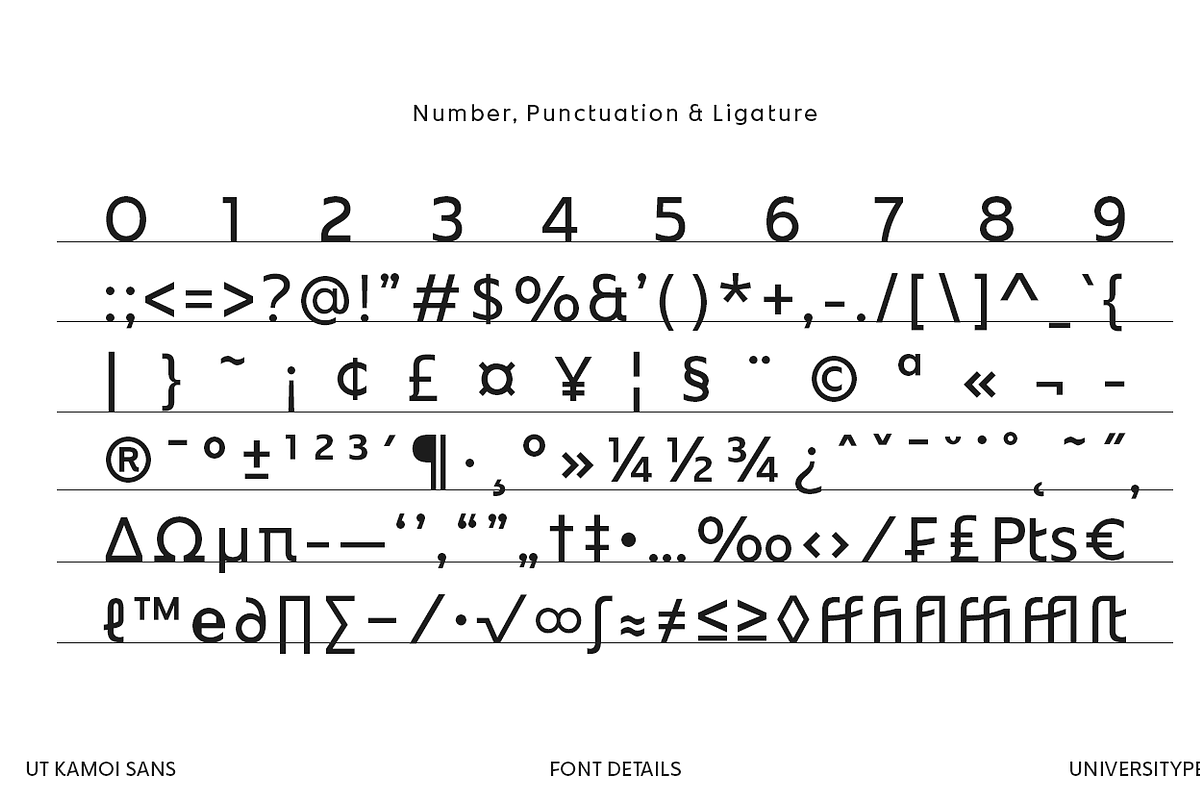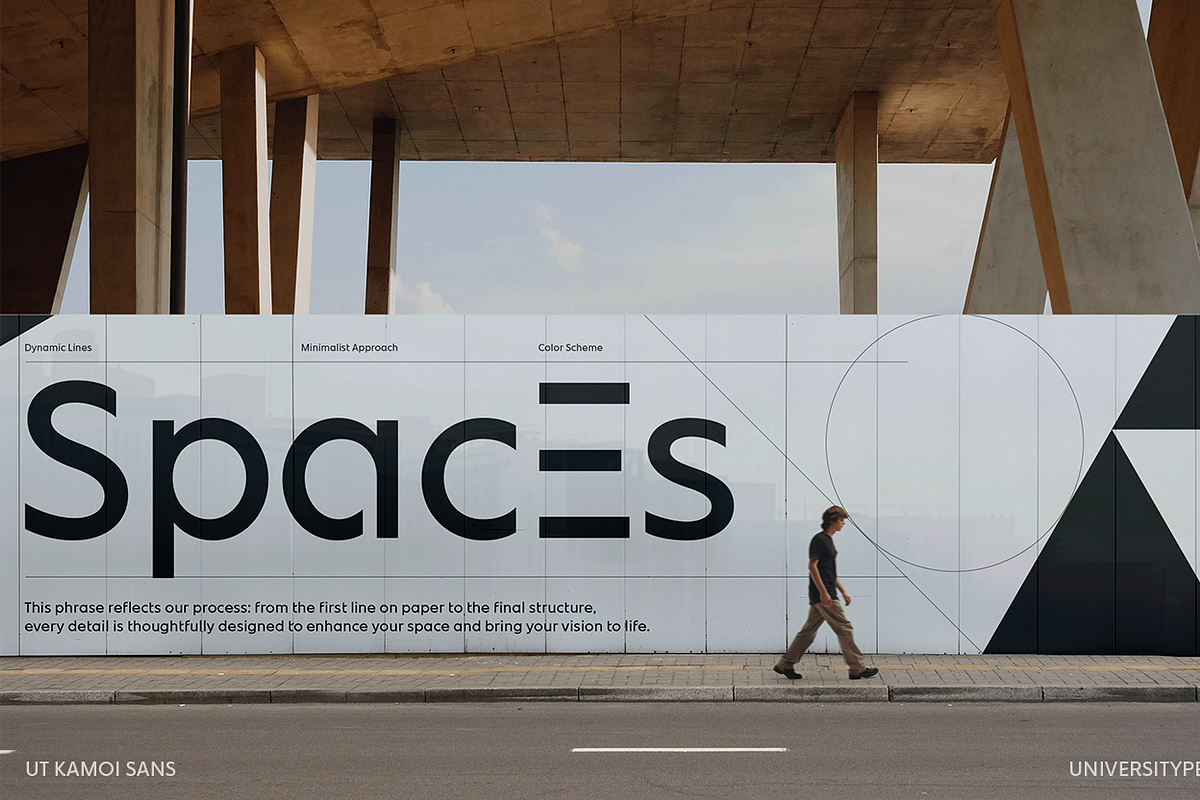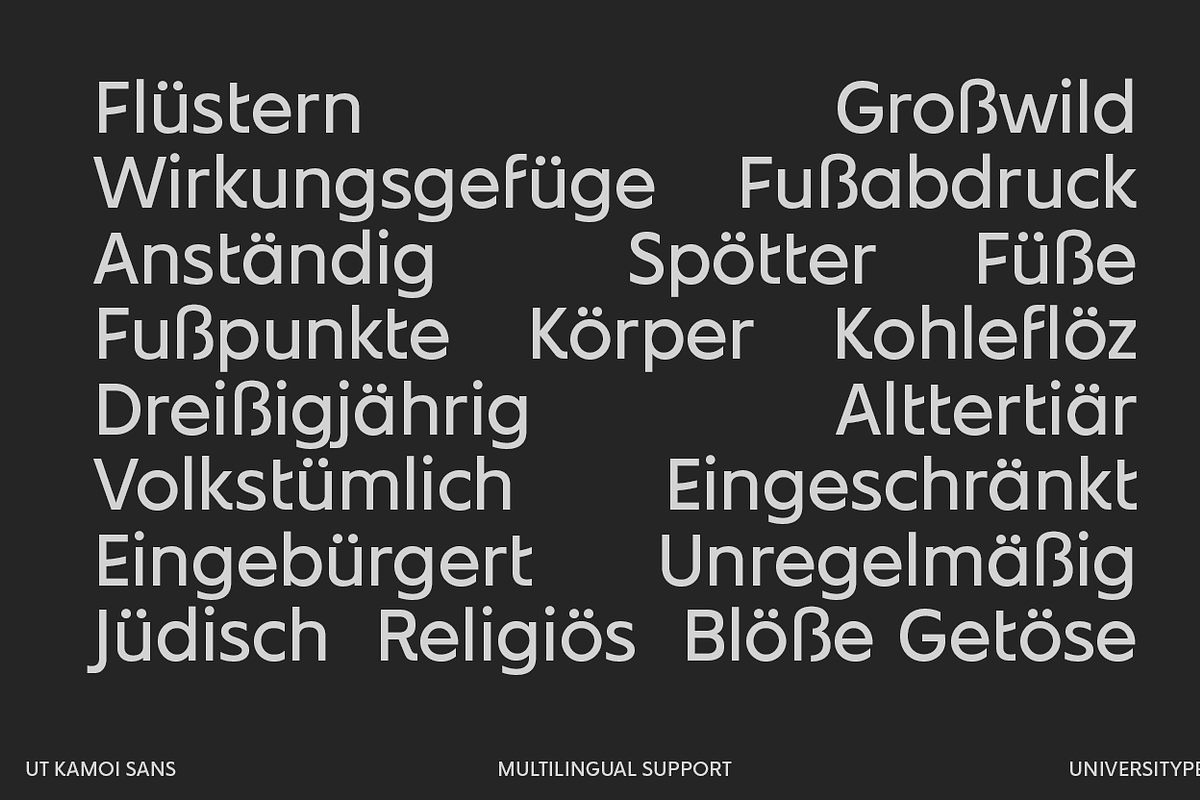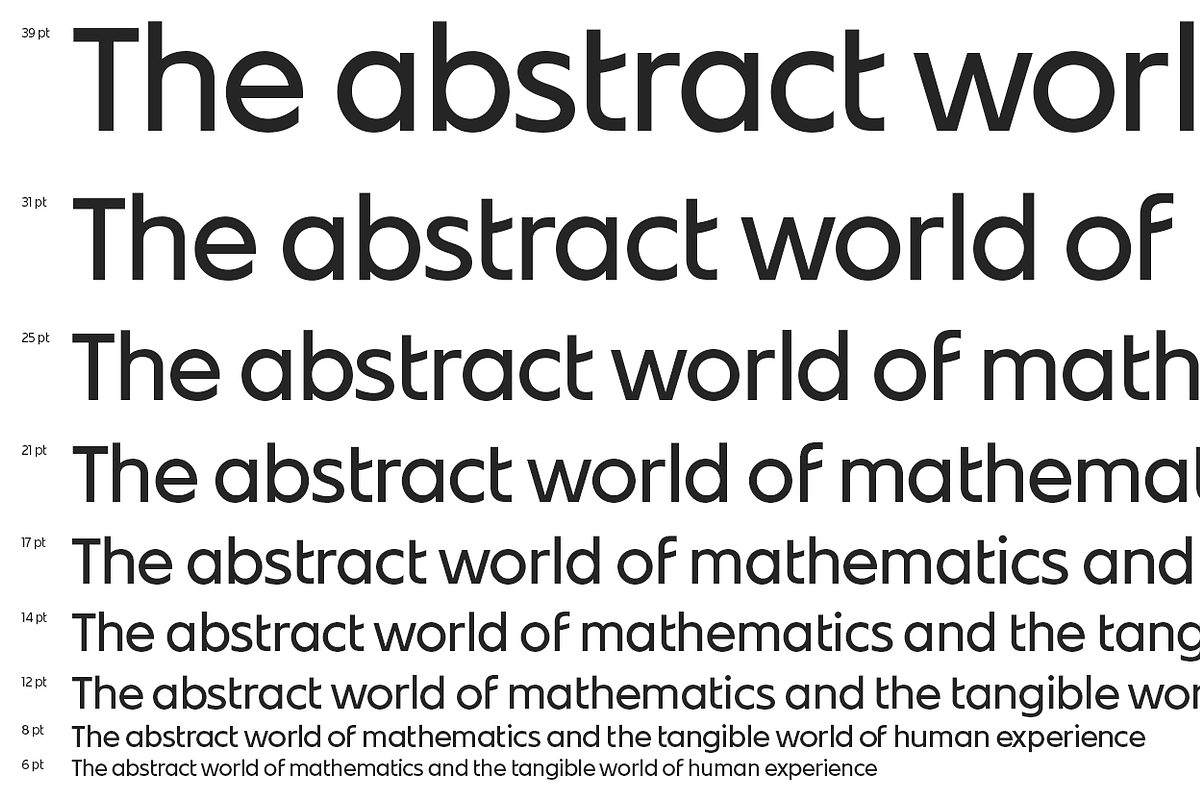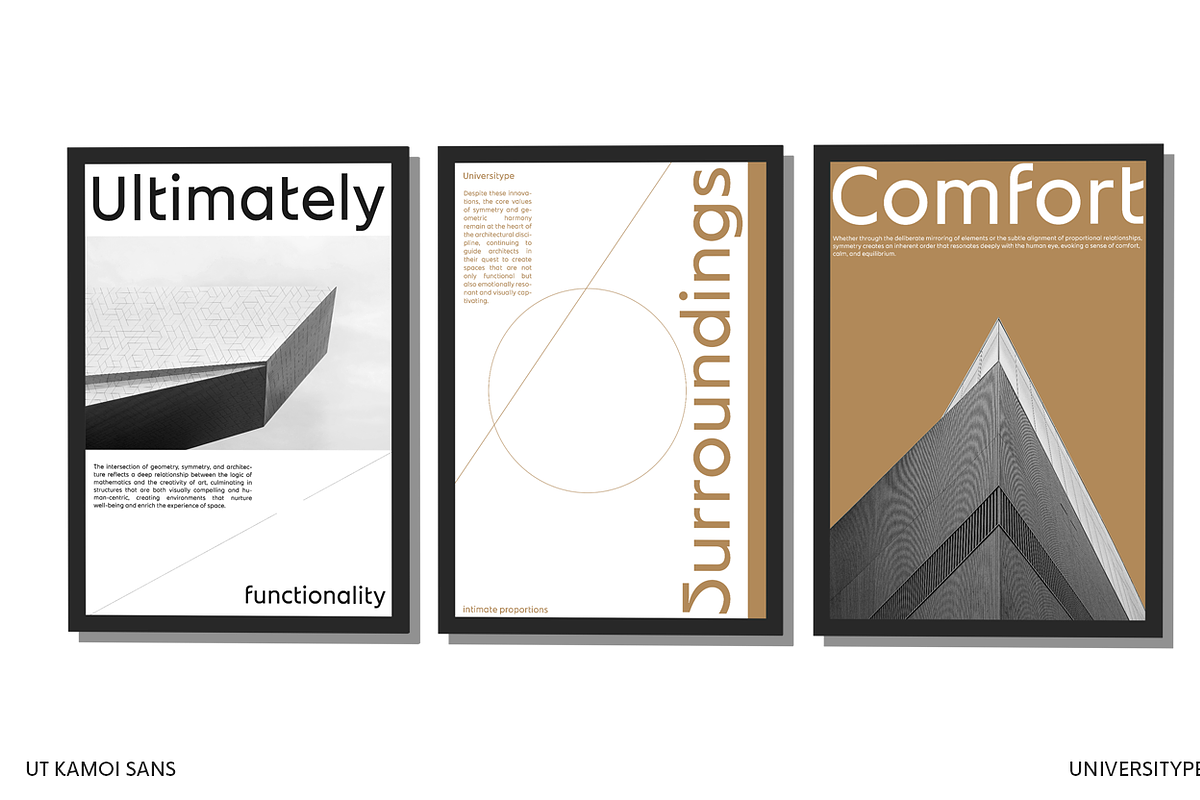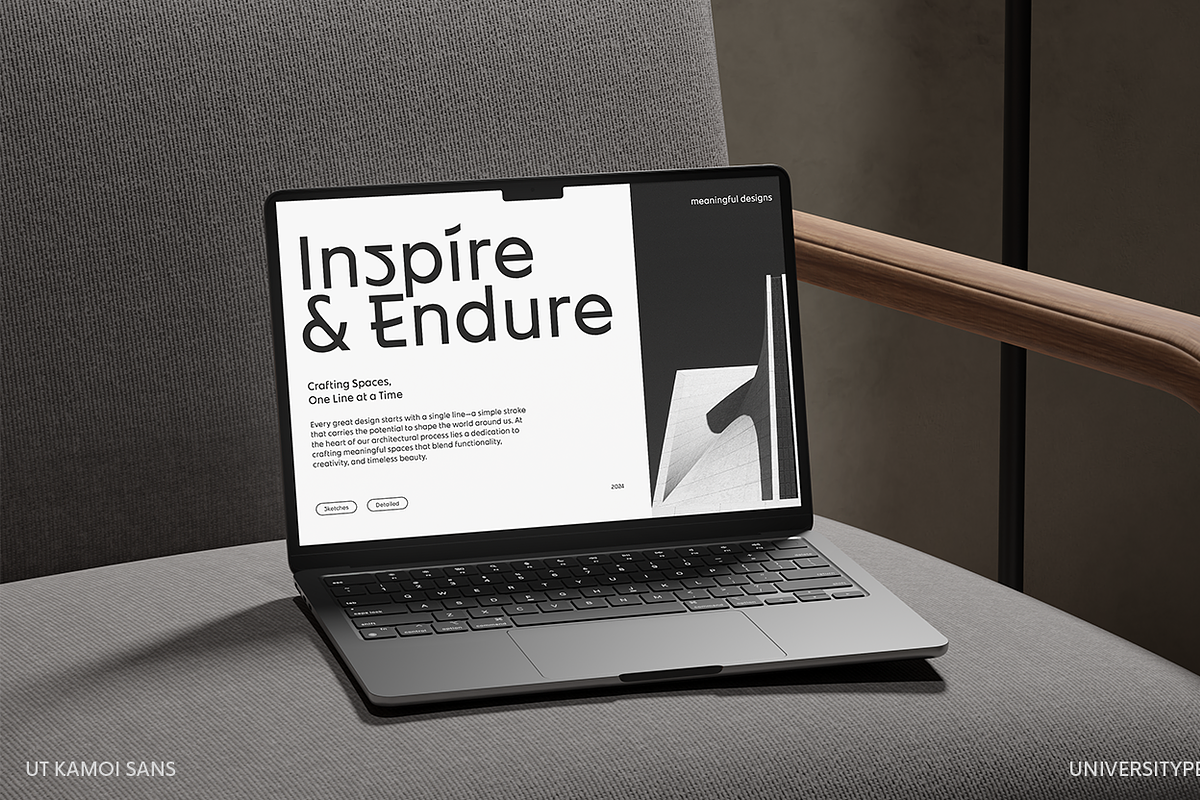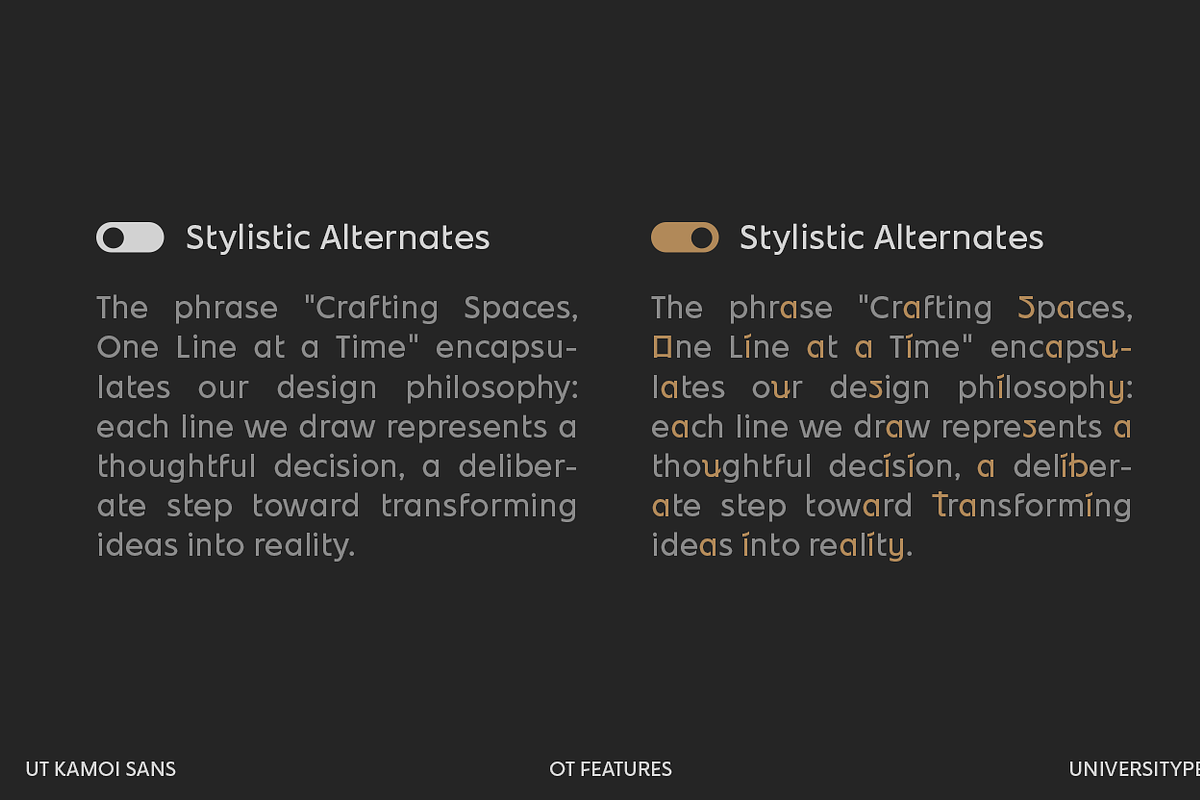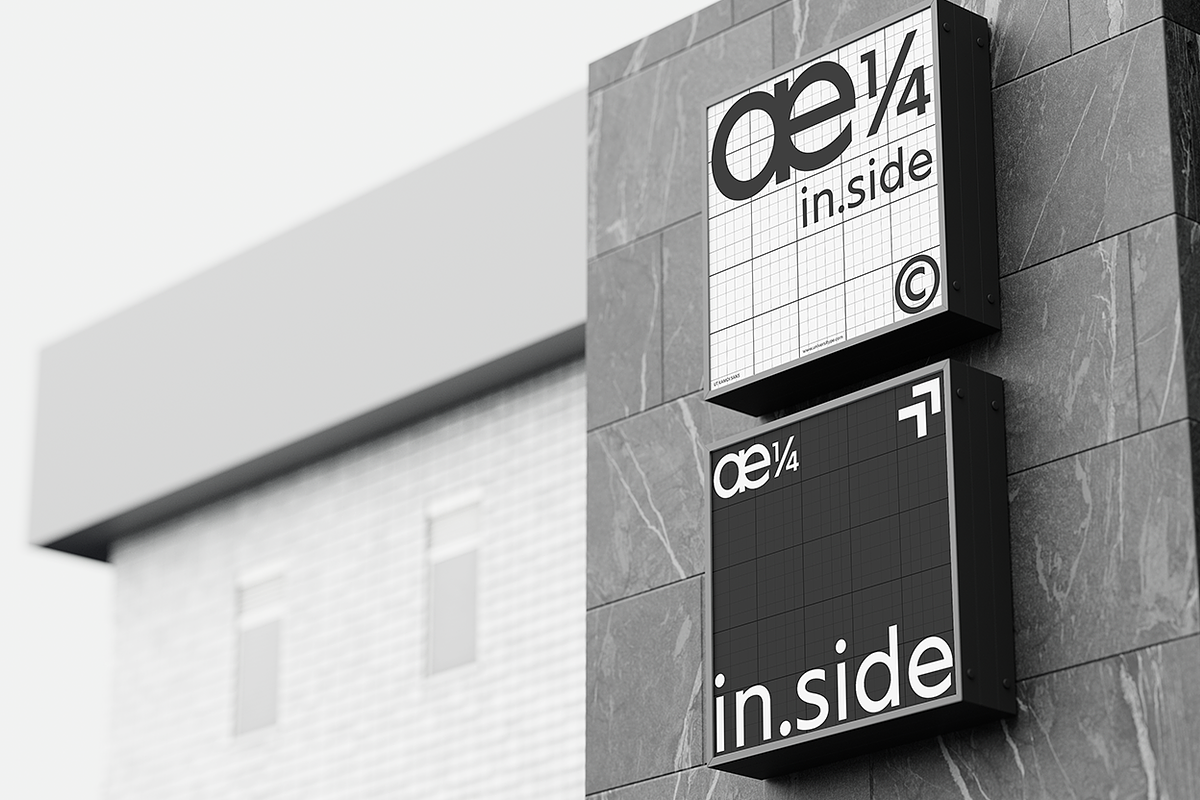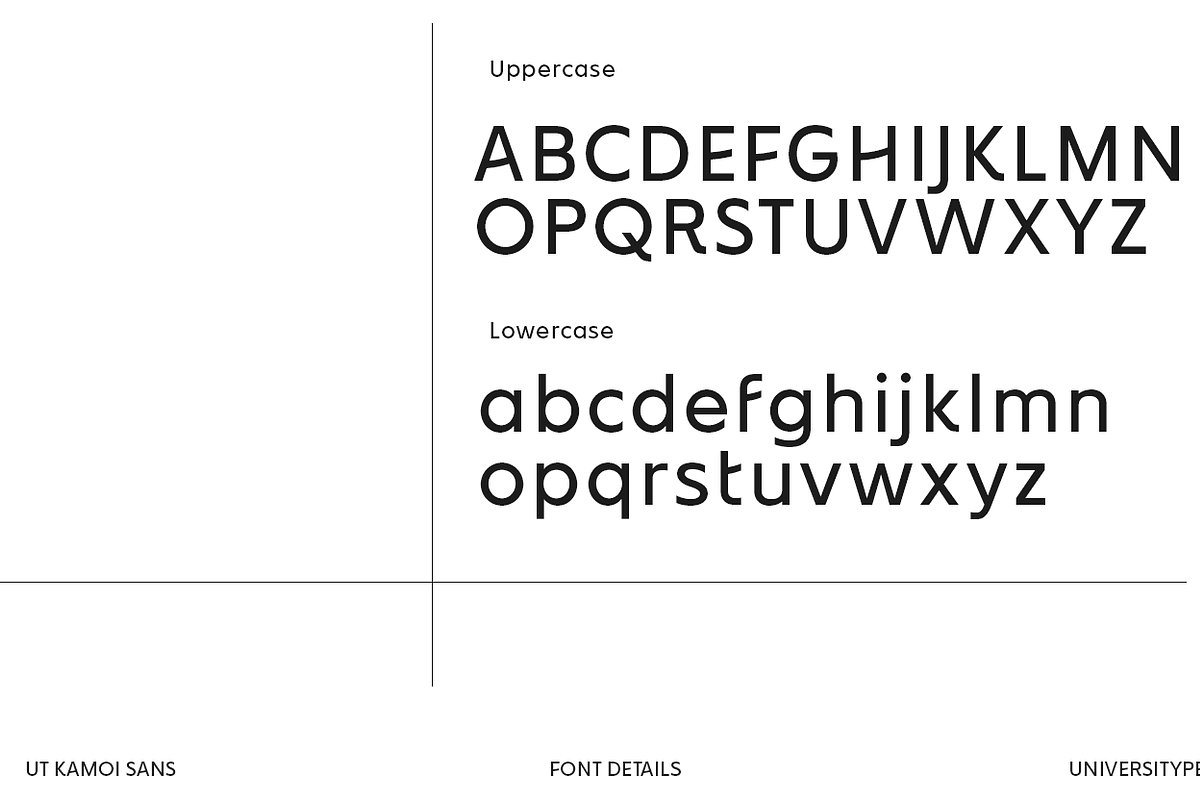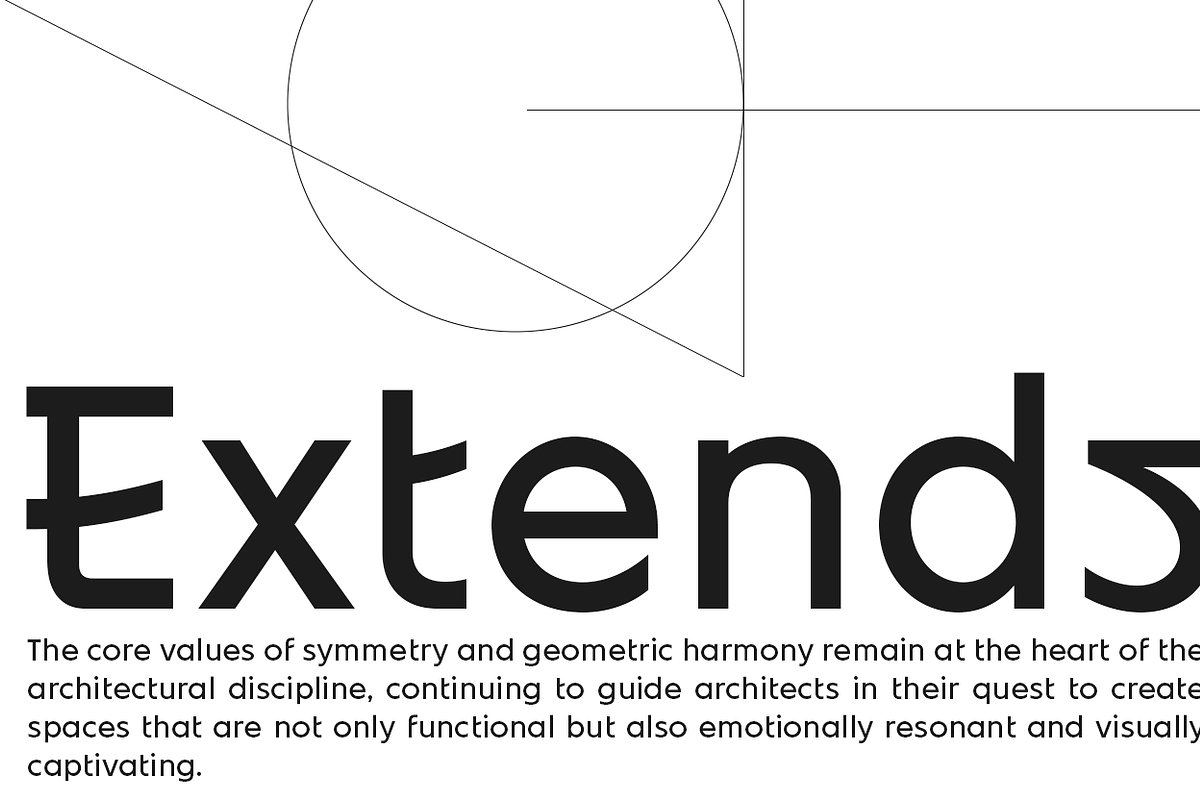
UT Kamoi Sans - A Geometric Sans
UT Kamoi Sans: A Harmony of Precision and Culture
UT Kamoi Sans is a geometric sans serif font that combines the precision of modern design with the rich cultural heritage of Japanese aesthetics.
Drawing inspiration from the smooth curves of Hiragana and Katakana scripts, as well as the meticulous symmetry found in architectural floor plans, this typeface strikes a harmonious balance between artistry and functionality.
Its bold geometric shapes make it a versatile choice for branding while exuding sophistication.
Target Audience: This font is designed for creatives, designers, and brands that appreciate contemporary design infused with cultural significance. It is particularly well-suited for professionals in architecture, fashion, and technology, or anyone in search of a typeface that conveys both precision and elegance.
Key Features: Versatility: Ideal for both digital and print applications, ranging from sleek branding projects to captivating editorial layouts. Legibility: Despite its geometric design, UT Kamoi Sans offers outstanding readability across various sizes. Unique Attributes: With alternate characters, stylistic options, and ligatures, this font provides limitless creative opportunities, allowing for customization to match diverse brand identities.
Inspiration Behind the Design UT Kamoi Sans : UT Kamoi Sans draws from two distinct yet complementary influences: the graceful curves of Japanese Hiragana and Katakana scripts and the structured precision of architectural floor plans.
Hiragana and Katakana, essential components of the Japanese writing system, are known for their simplicity and elegance.
Each stroke flows with a natural rhythm, offering clarity without rigidity. In contrast, architectural floor plans embody order and structure, where every line is intentional and every angle is carefully considered.
This blend of inspirations results in a typeface that feels both organic and mechanical, soft yet robust. It honors tradition while embracing the modern era.
UT Kamoi Sans Usage Suggestions:
- Branding: An excellent choice for logo design, corporate identity, and packaging, particularly for brands that emphasize minimalism and precision.
- Editorial: Use it in magazines, books, and posters to add a contemporary edge with clean, balanced typography.
- Web Design: A fantastic option for UI/UX interfaces, web headers, and more.
Fonts go beyond being simple tools, they are the silent communicators of tone, mood, and brand identity. UT Kamoi Sans is not just another geometric sans serif; it’s a thoughtfully designed expression of balance. It speaks to the creative professional who values clean, intentional design and appreciates the nuanced beauty of cultural influences. Whether you’re working on a modern tech startup, a minimalist magazine design, or a classic brand, UT Kamoi Sans is the typeface that can elevate your work. It’s more than just a font; it’s a statement.